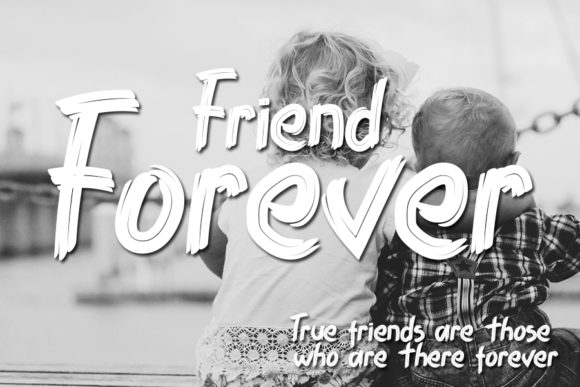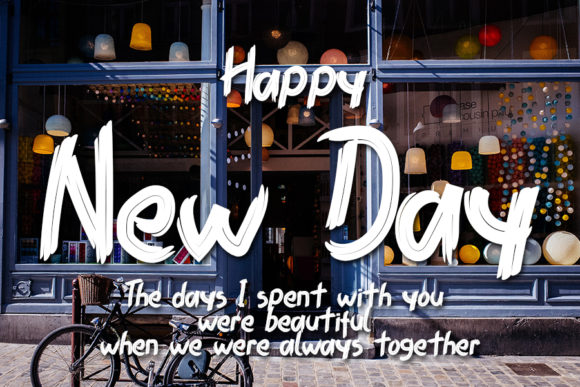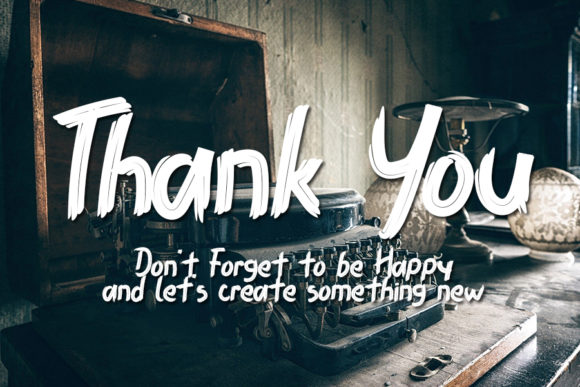
Introduction to Qeen Eliza Font
As you sit at your desk, surrounded by colorful papers and scattered design elements, you’re searching for the perfect font to bring your creative project to life. The excitement builds up as you browse through various design resources, but something catches your eye – a beautiful, trendy brushed display font that screams ‘attention-grabbing’.
That’s when you discover the Qeen Eliza Font, a high-quality design element that’s sure to elevate your work. With its smooth, elegant strokes and modern aesthetic, this font is perfect for crafting, digital designing, presentations, or even greeting cards making. The transparent background option gives you the flexibility to work seamlessly with your design, making it a valuable resource for any creative project.
Key Features of Qeen Eliza Font
- High-quality, professional font design suitable for various creative projects, including logos, graphics, and documents.
- Includes a transparent background option for seamless integration with any design resource.
- High-resolution font, suitable for printing at 300 DPI (dots per inch) or more.
- Unique, elegant design inspired by classic typography, perfect for adding a touch of sophistication to any project.
Honest Review: Qeen Eliza Font
As a designer, I’m always on the lookout for high-quality design resources to elevate my creative projects. The Qeen Eliza Font caught my attention, and I was eager to give it a try.
Here are the pros and cons of using the Qeen Eliza Font:
- ✨ It features a beautiful, elegant design that works well for various creative projects, from wedding invitations to luxury branding.
- ✨ The transparent background option provides a clean and versatile look that’s perfect for layered designs.
- ⚠️ The font may not be suitable for text-heavy designs, as the letterforms can be quite ornate.
- ⚠️ Some users may find the font’s style too over-the-top or extravagant for certain projects.
Overall, the Qeen Eliza Font is a solid choice for designers looking for a high-quality, free design resource. While it may not be perfect for every project, its elegant design and transparent background options make it an excellent addition to any design toolkit.
Tips for Getting the Most Out of Qeen Eliza Font
Qeen Eliza Font is ideal for creative projects, such as logos, brochures, and business cards. Its unique design makes it perfect for artistic and design-related projects that require a touch of elegance and sophistication. You can also use it for web design, social media graphics, and other digital projects.
Yes, Qeen Eliza Font supports transparent backgrounds, making it perfect for designs that require a high level of customization and flexibility. You can use the font with a transparent background in your designs, including logos, icons, and graphics.